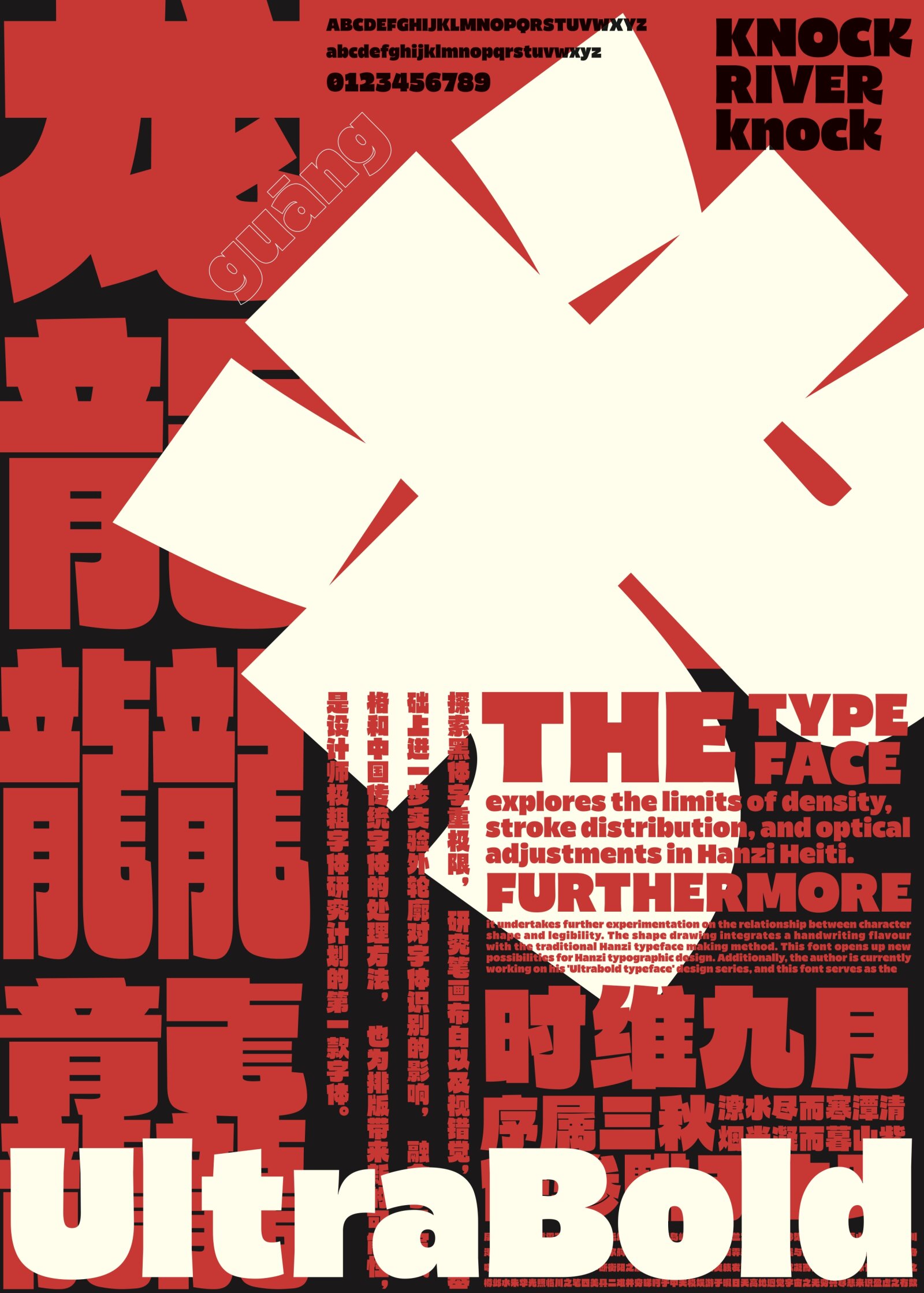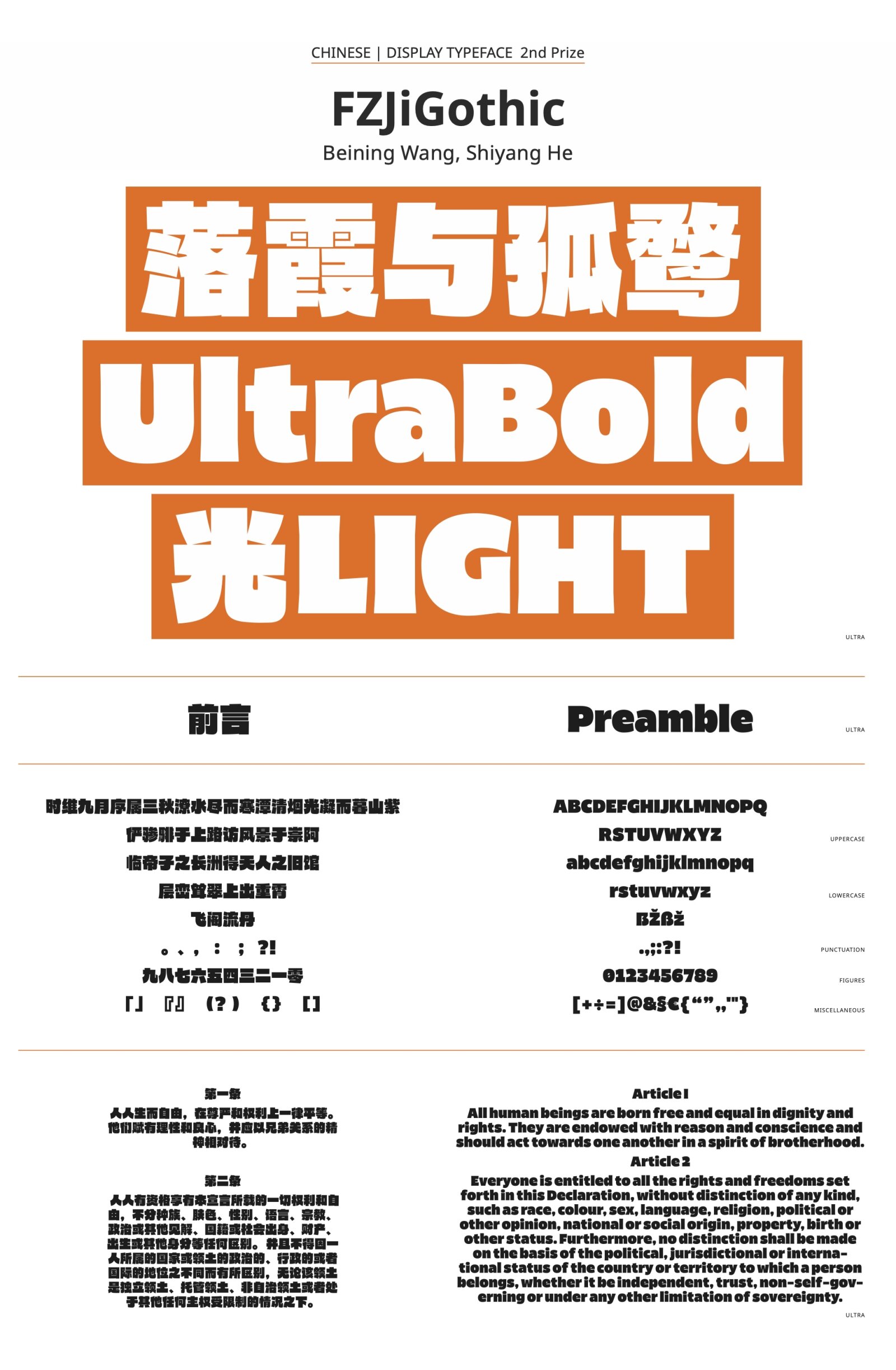
FZJiGothic
by Shiyang He, Beining Wang
Chinese
The typeface explores the limits of density, stroke distribution, and optical adjustments in Hanzi Heiti. Furthermore, it undertakes further experimentation on the relationship between character shape and legibility. The shape drawing integrates a handwriting flavour with the traditional Hanzi typeface making method. This font opens up new possibilities for Hanzi typographic design. Additionally, the author is currently working on his 'Ultrabold typeface' design series, and this font serves as the first installment of this series.